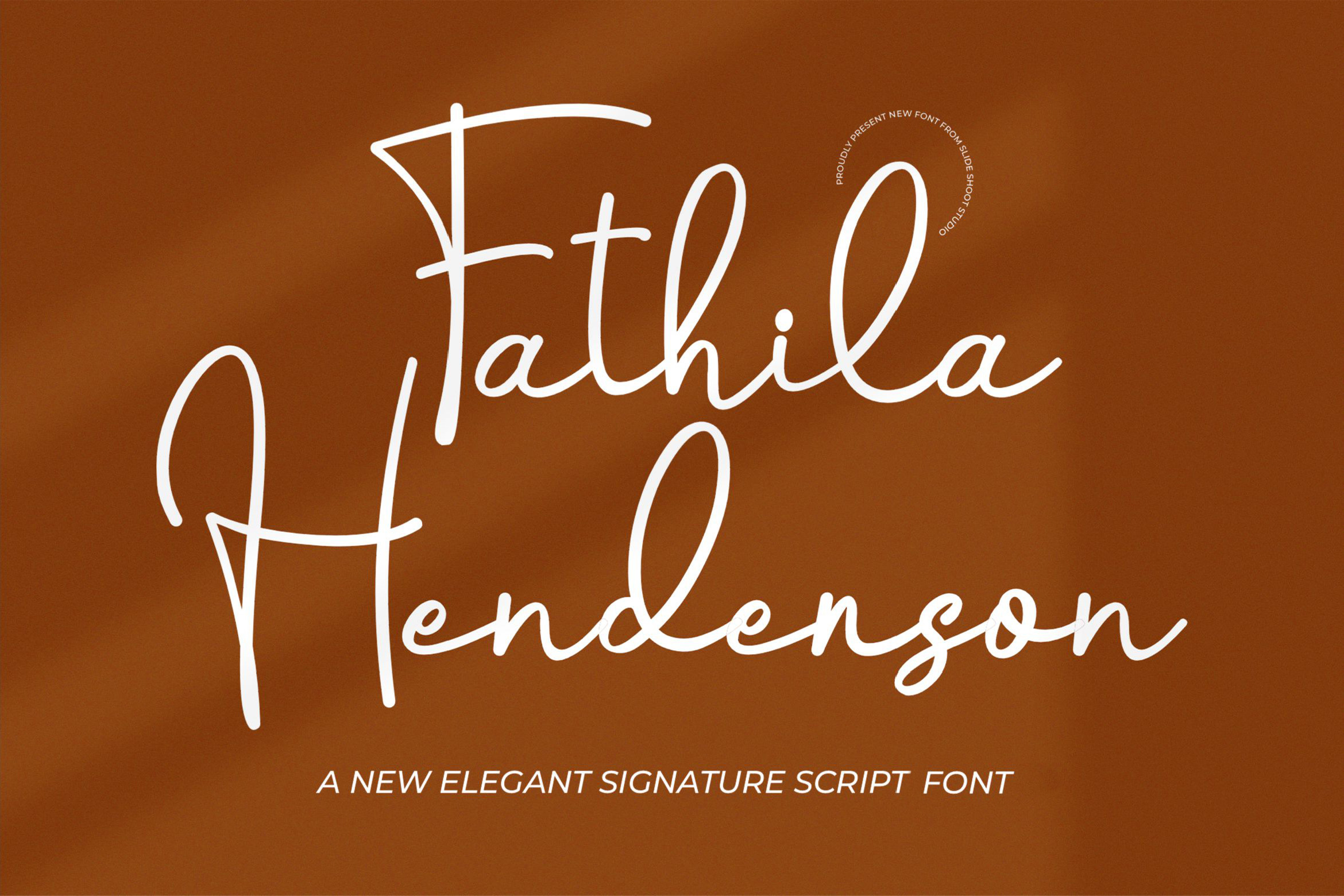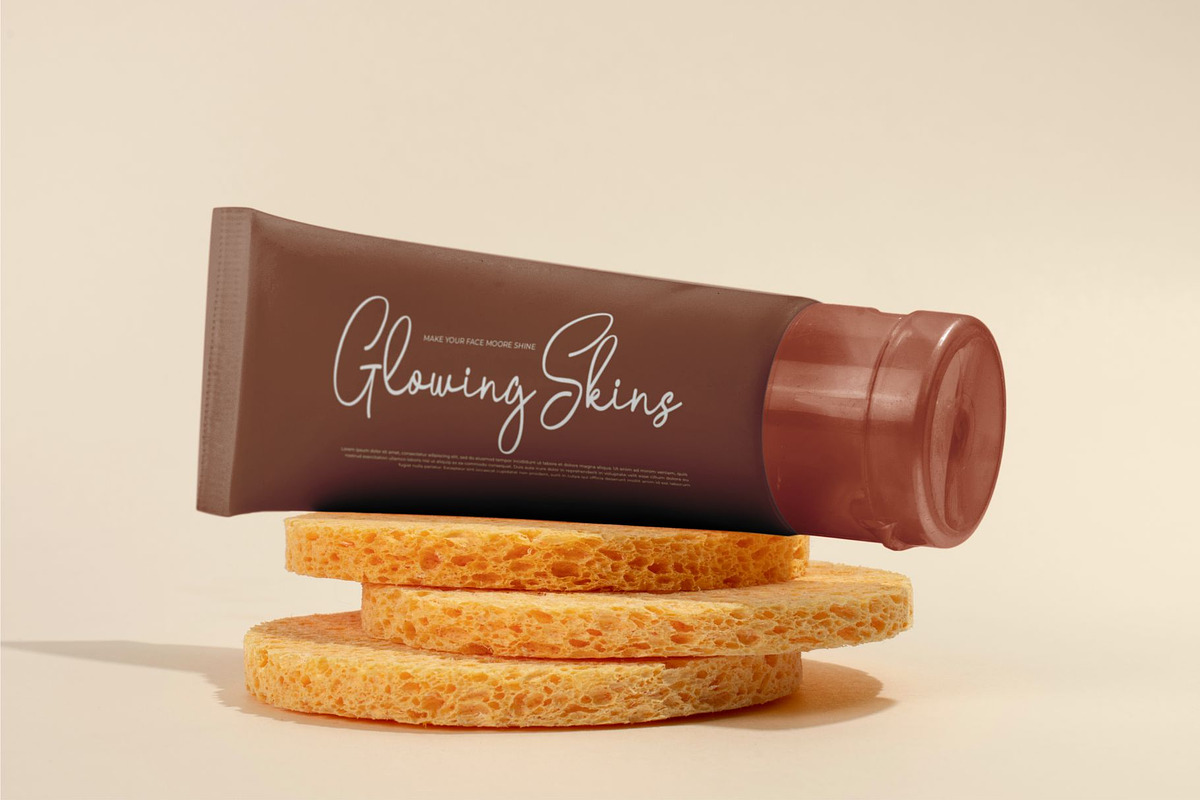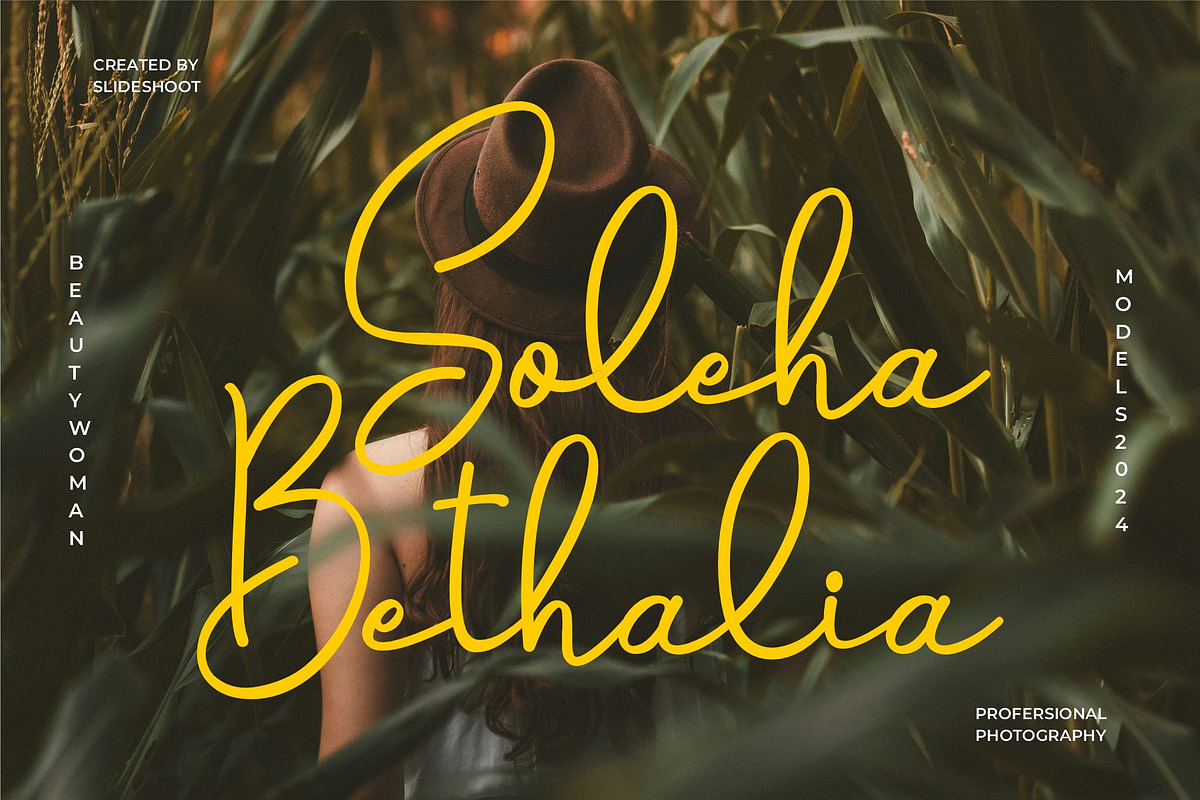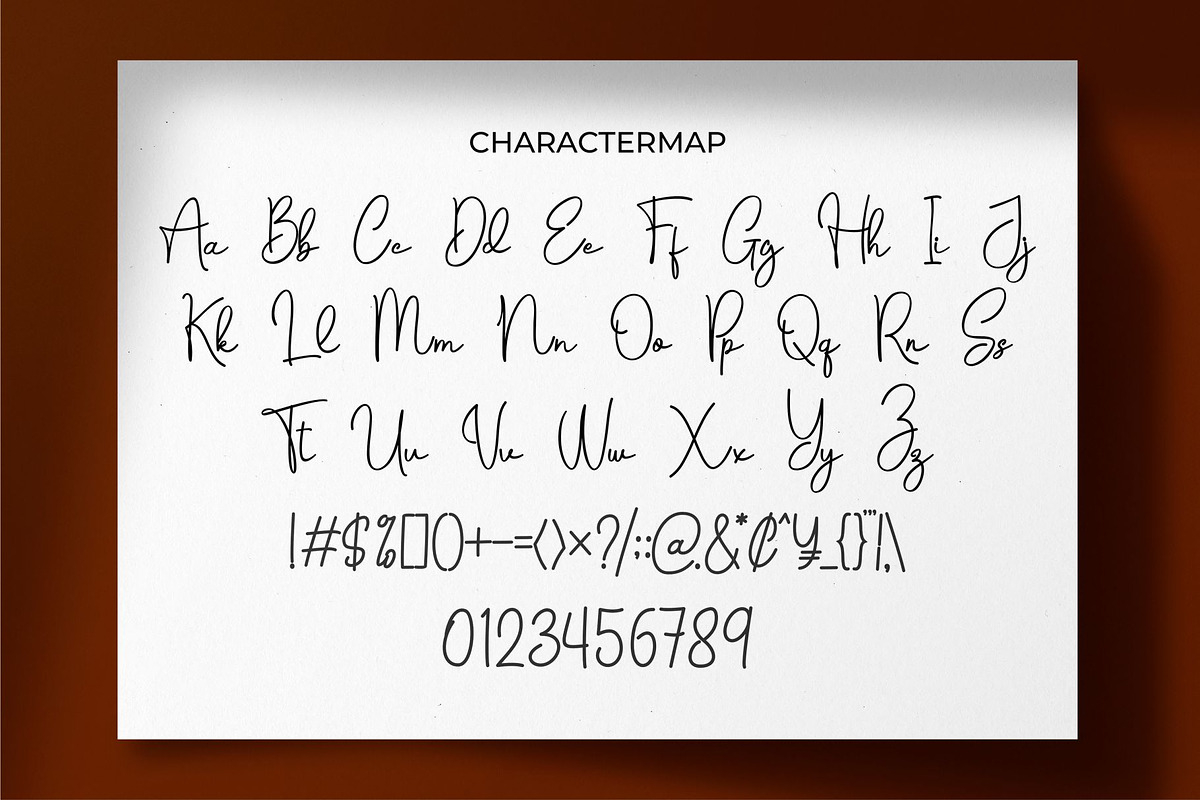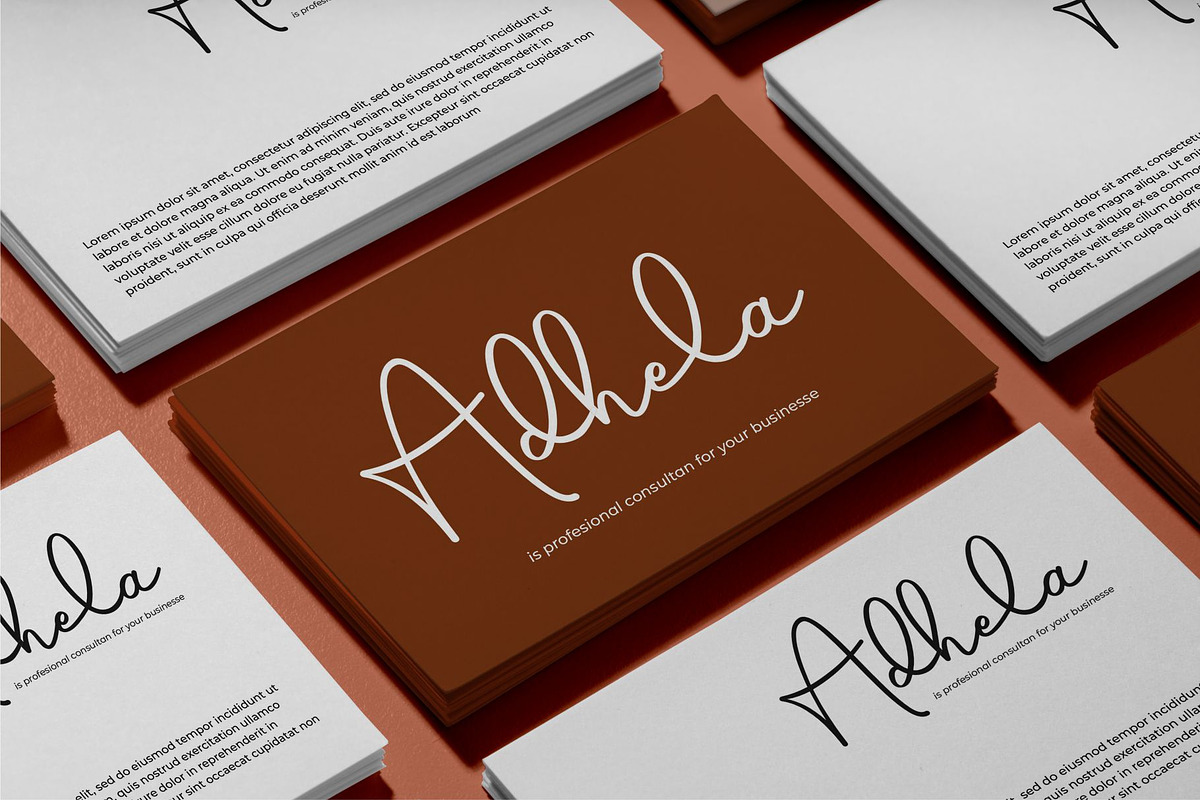
Fathila Hendedson || Script Font
Hello everyone, I would like to introduce Fathila Henderson a handwritten font with a casual and elegant style.
Wollande Apholan can also be used for a variety of projects such as branding, labels, photography, invitations, stationery, wedding designs, social media posts, advertising, product packaging, product design and other awesome projects.